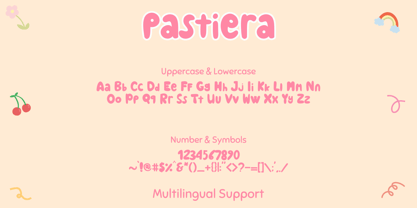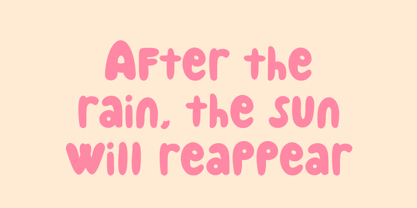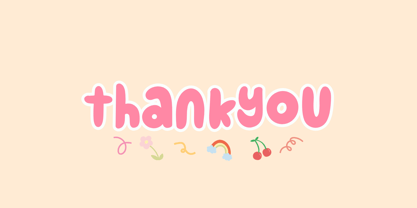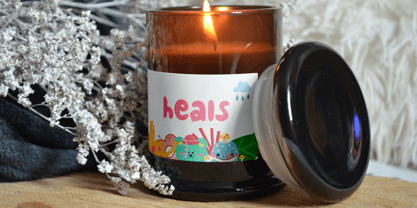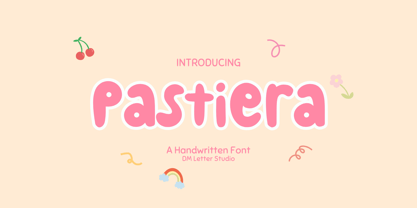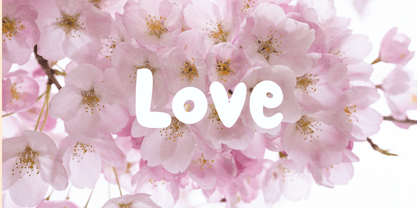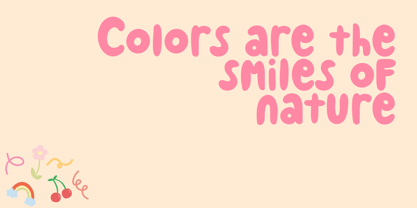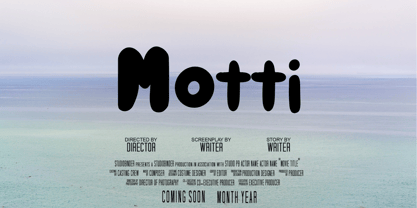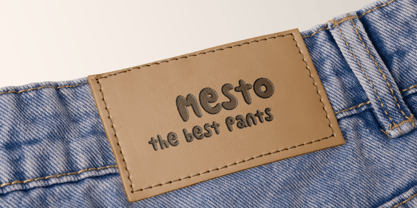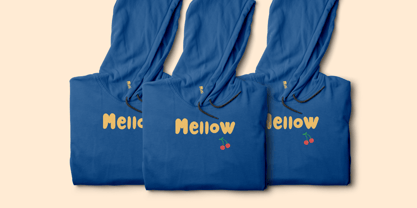
Pastiera
La familia tipográfica Pastiera fue diseñada por Dimas Prasetyo y publicada por DM Studio. Pastiera contiene 1 estilos.
Pastiera is a delightful handwritten font that brings a touch of sweetness and charm to any design. With its bold, rounded letters and soft, bubbly edges, this font radiates joy and innocence—perfect for kid-themed projects, cute branding, or playful social media graphics.
Inspired by the cheerful world of doodles, toys, and pastel tones, Pastiera is designed to grab attention while maintaining a friendly and cozy feel. Whether you're creating greeting cards, product packaging, posters, or quotes, this font will instantly uplift your message with its fun-loving personality.
Features:
• Fun, chunky handwritten style
• Smooth curves and rounded forms
• Perfect for kids’ content, crafts, and branding
• Easy to read and highly versatile
• Ideal for both print and digital use